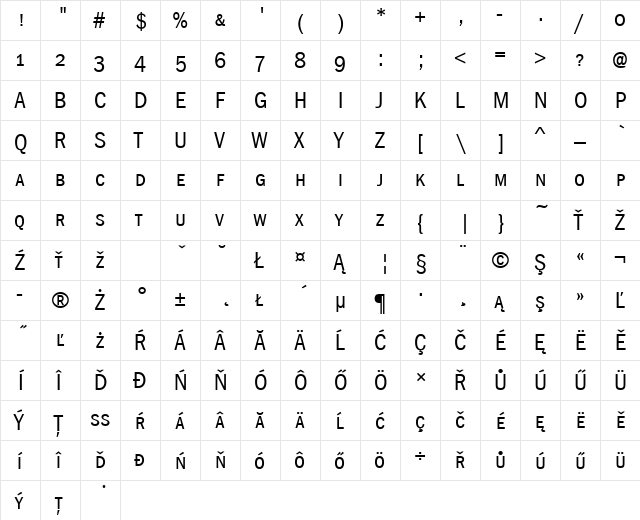
FranklinGotSCItcTEEBooCon Regular Font Preview
FranklinGotSCItcTEEBooCon Regular
Design Context for FranklinGotSCItcTEEBooCon Typeface
FranklinGotSCItcTEEBooCon offers clean, dependable letterforms without strong stylistic allegiance, making it a practical choice for designers who need flexibility.
Pro Tip: Use FranklinGotSCItcTEEBooCon in both headline and body roles to test its range before committing to a single application.